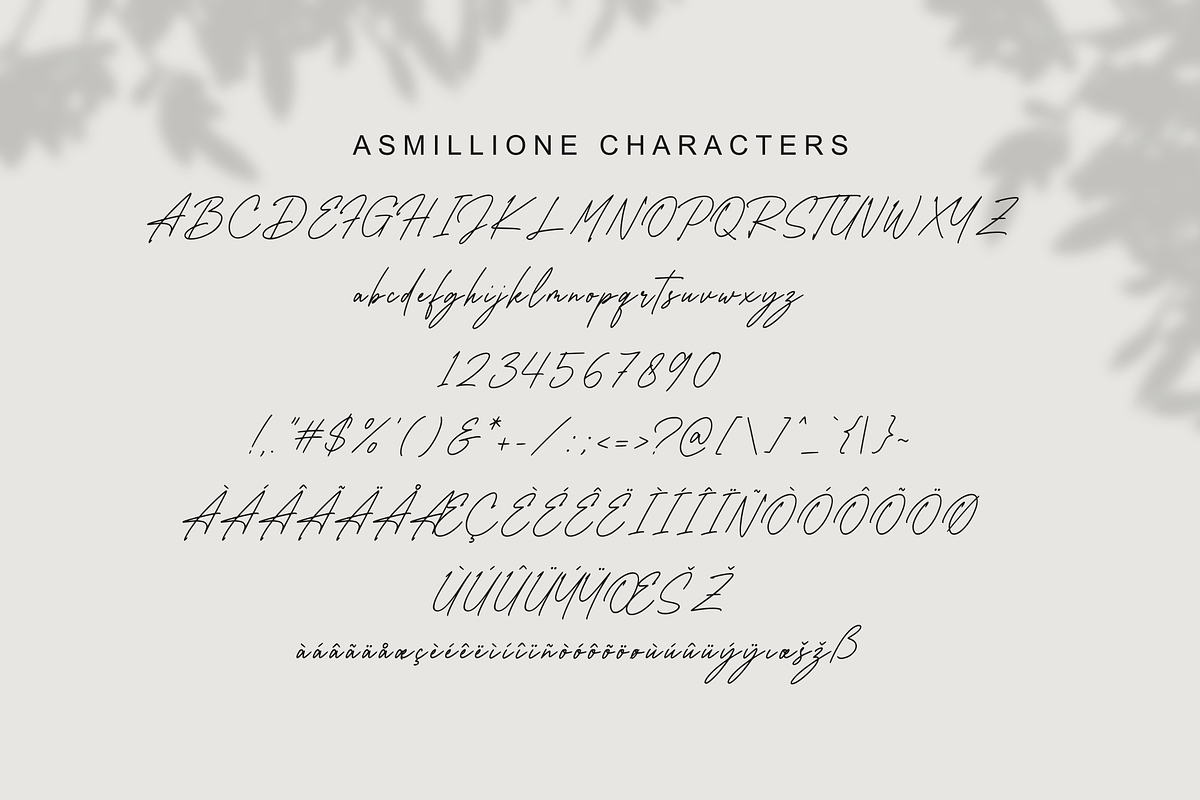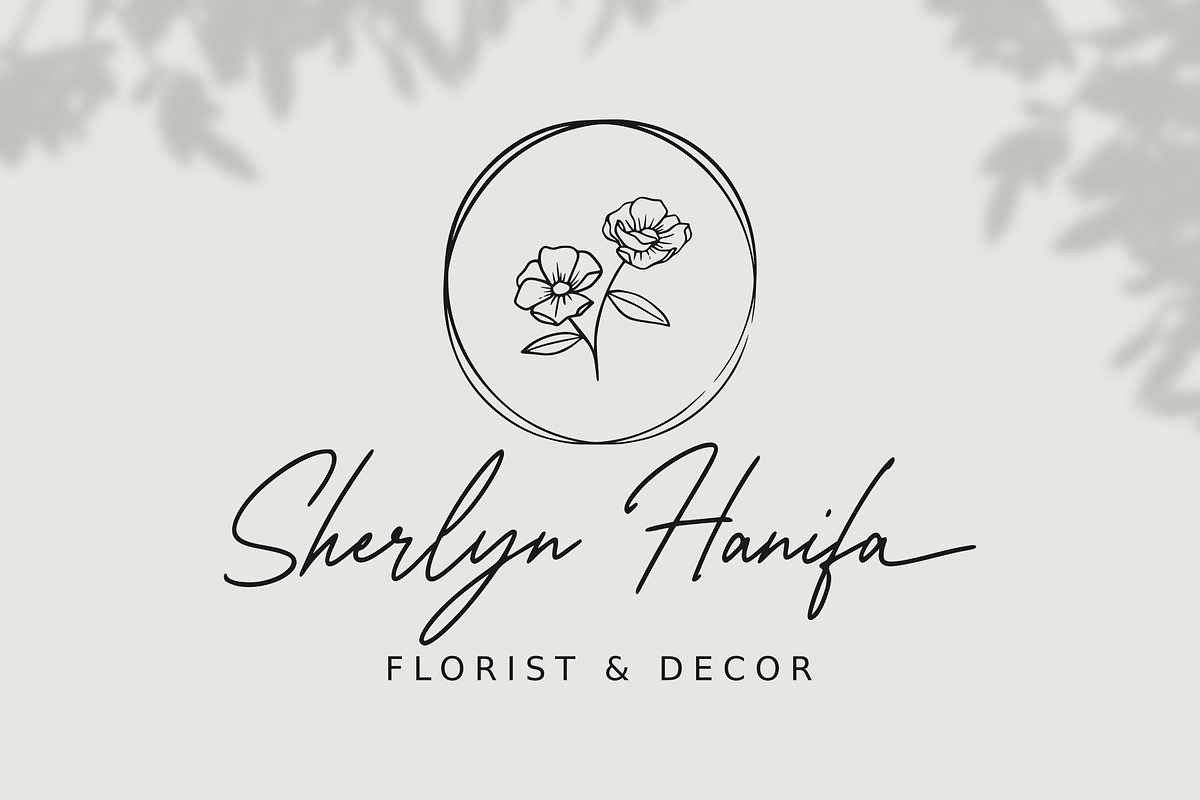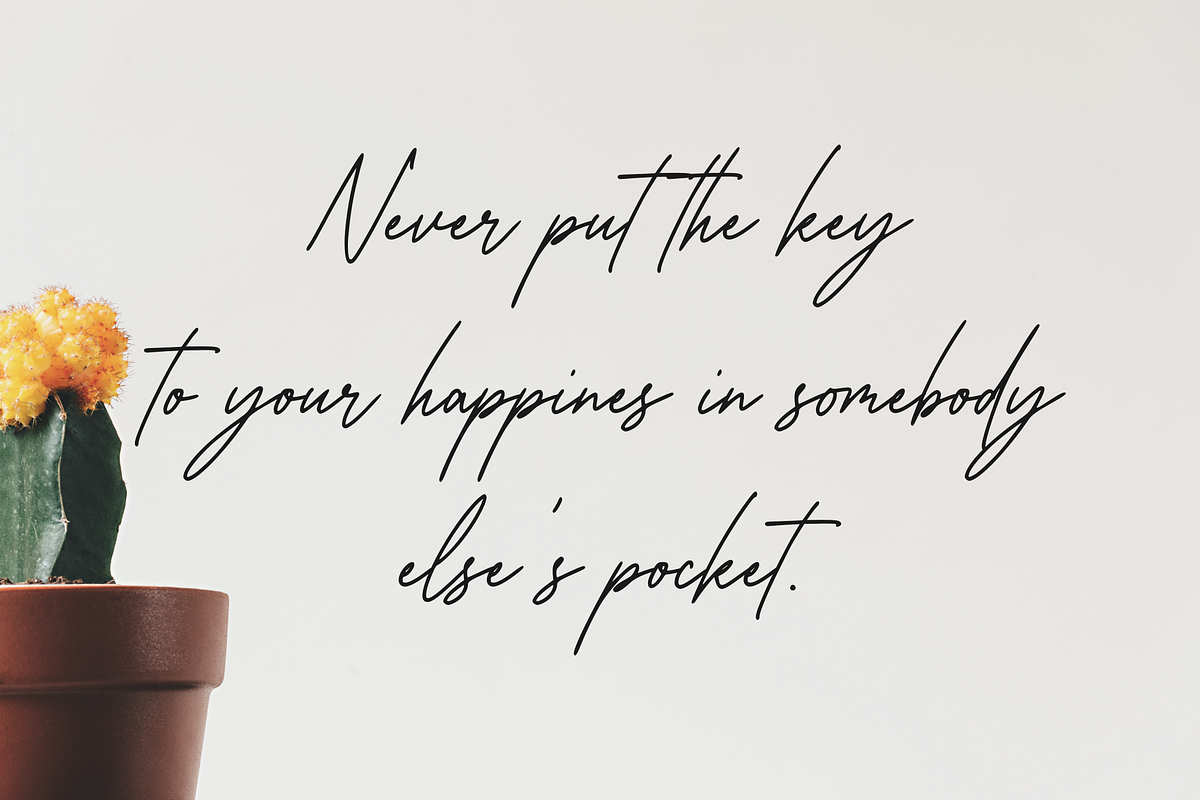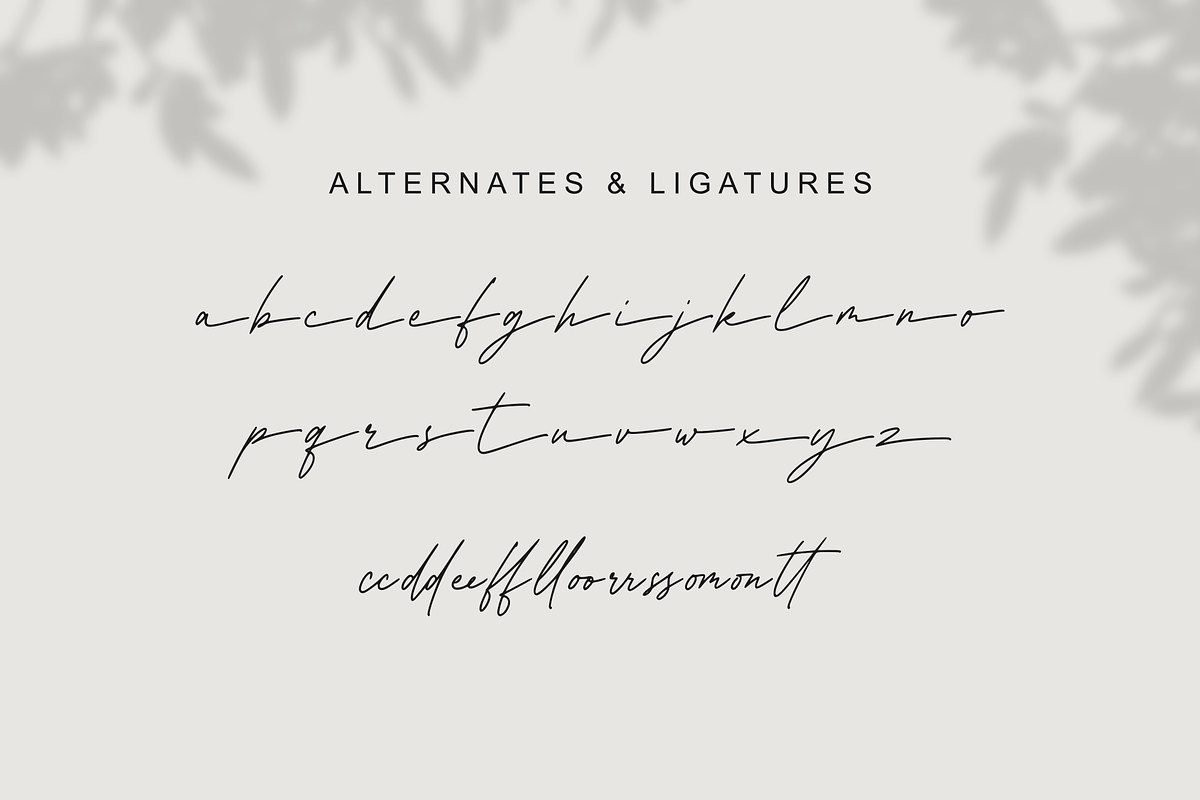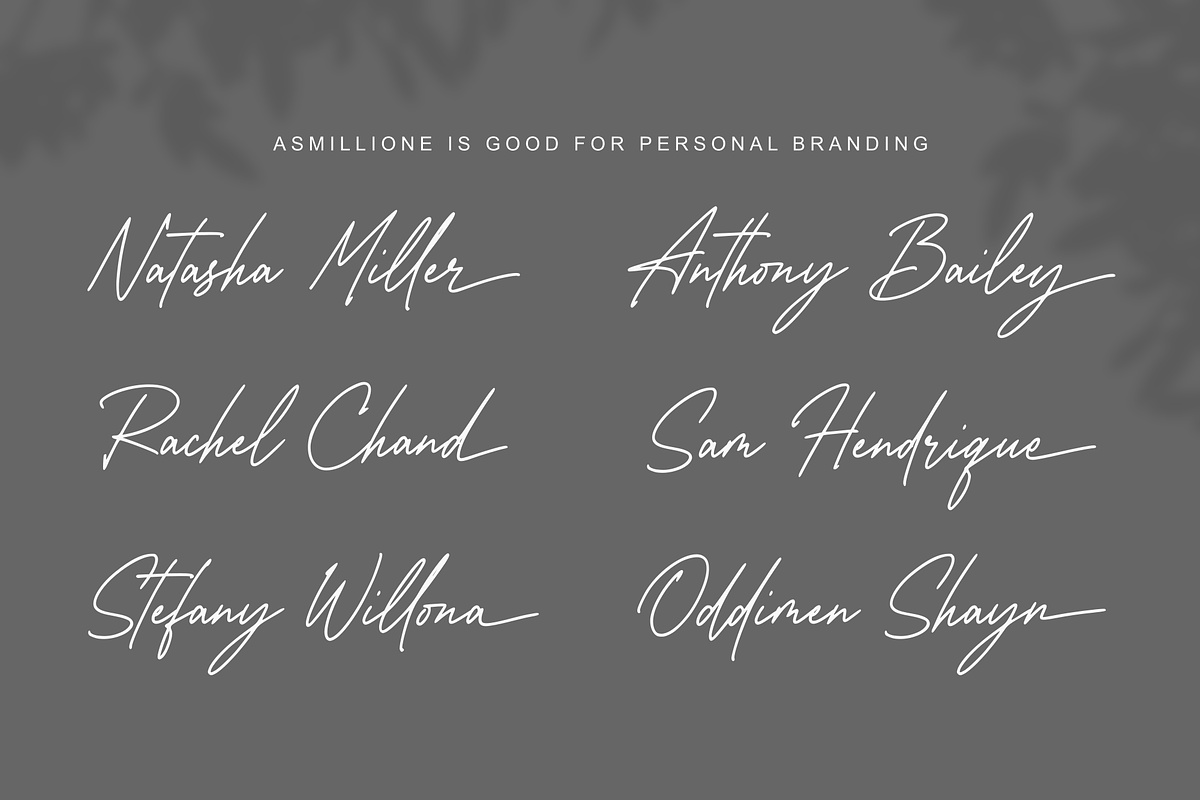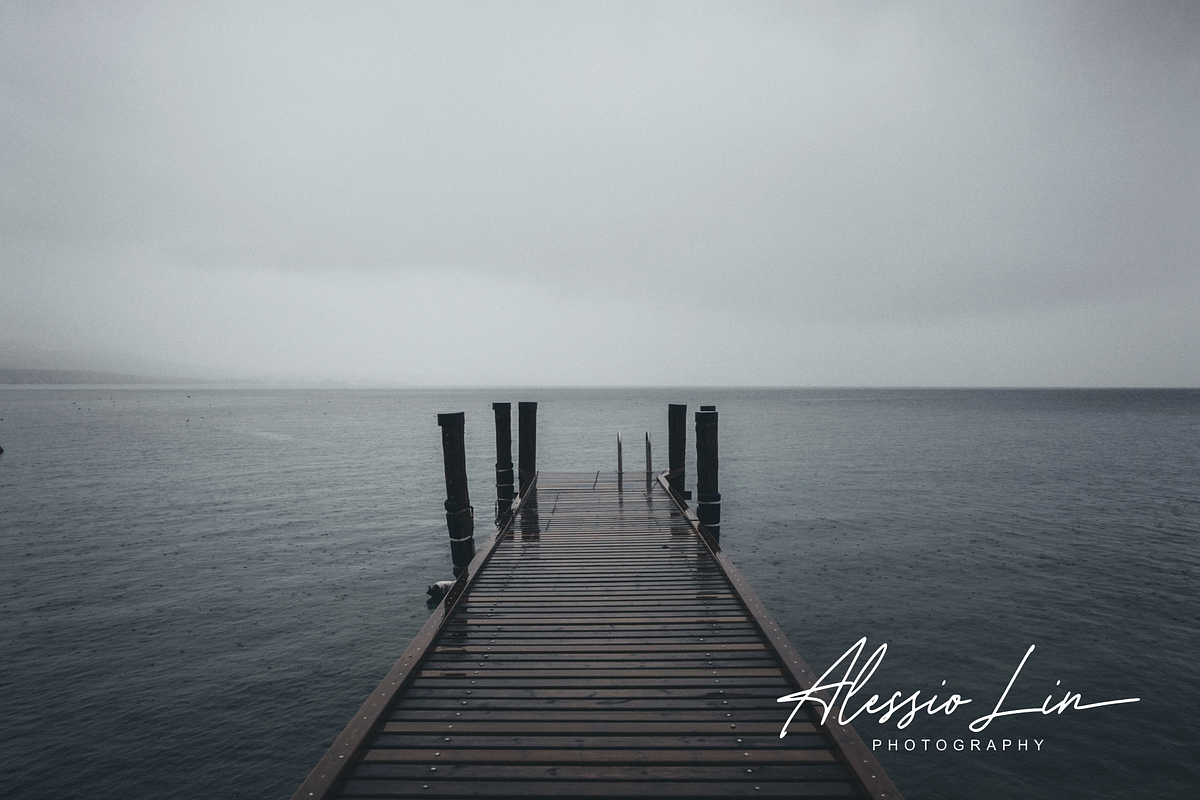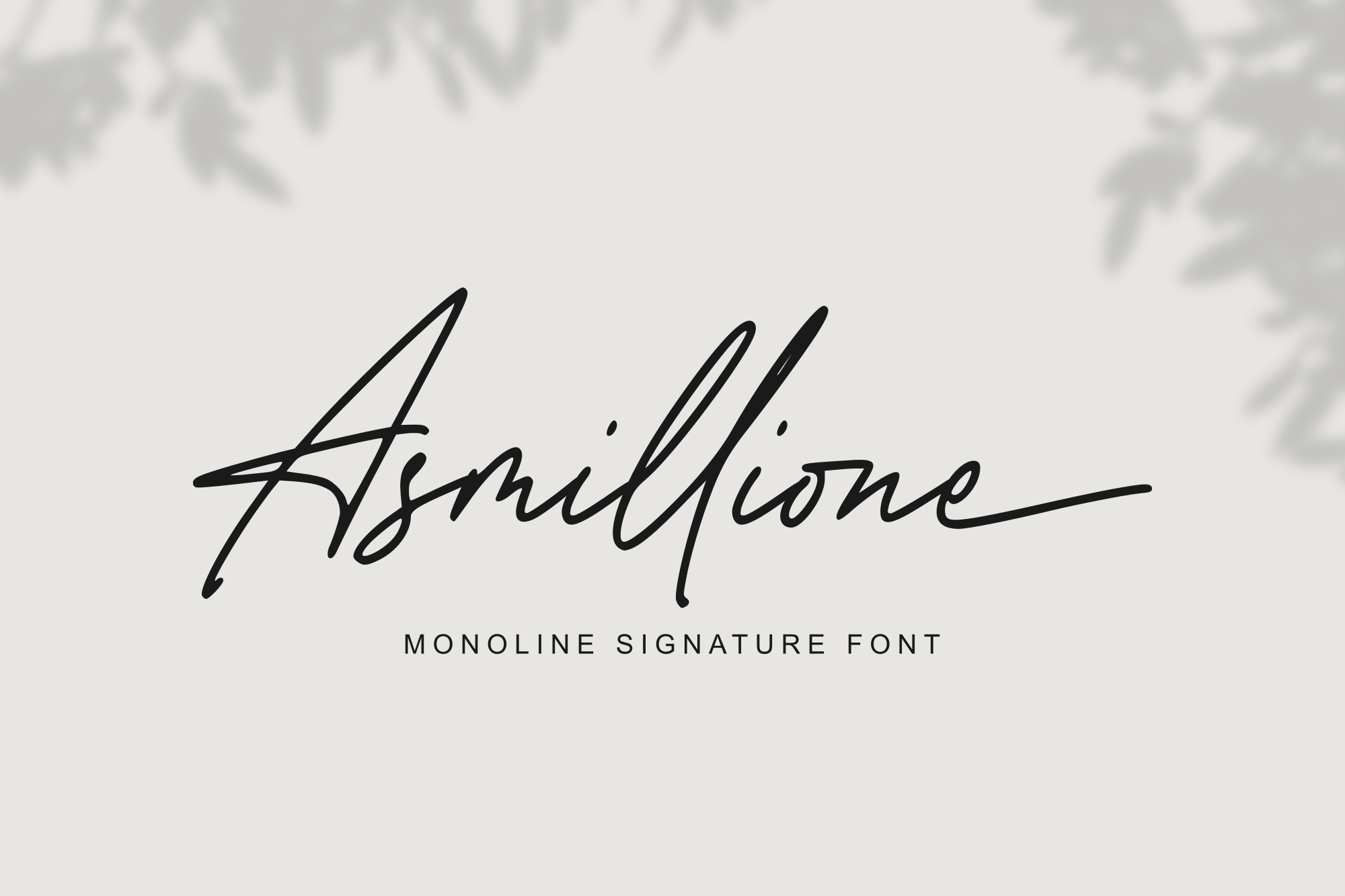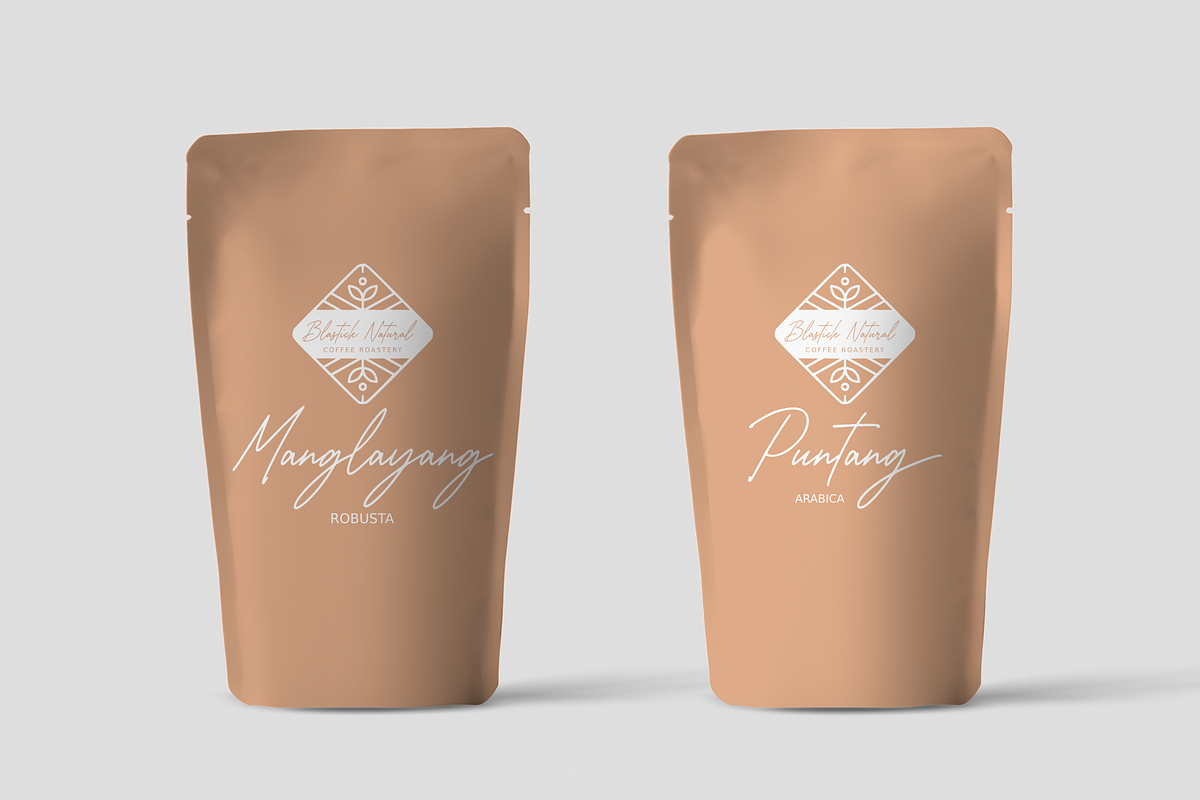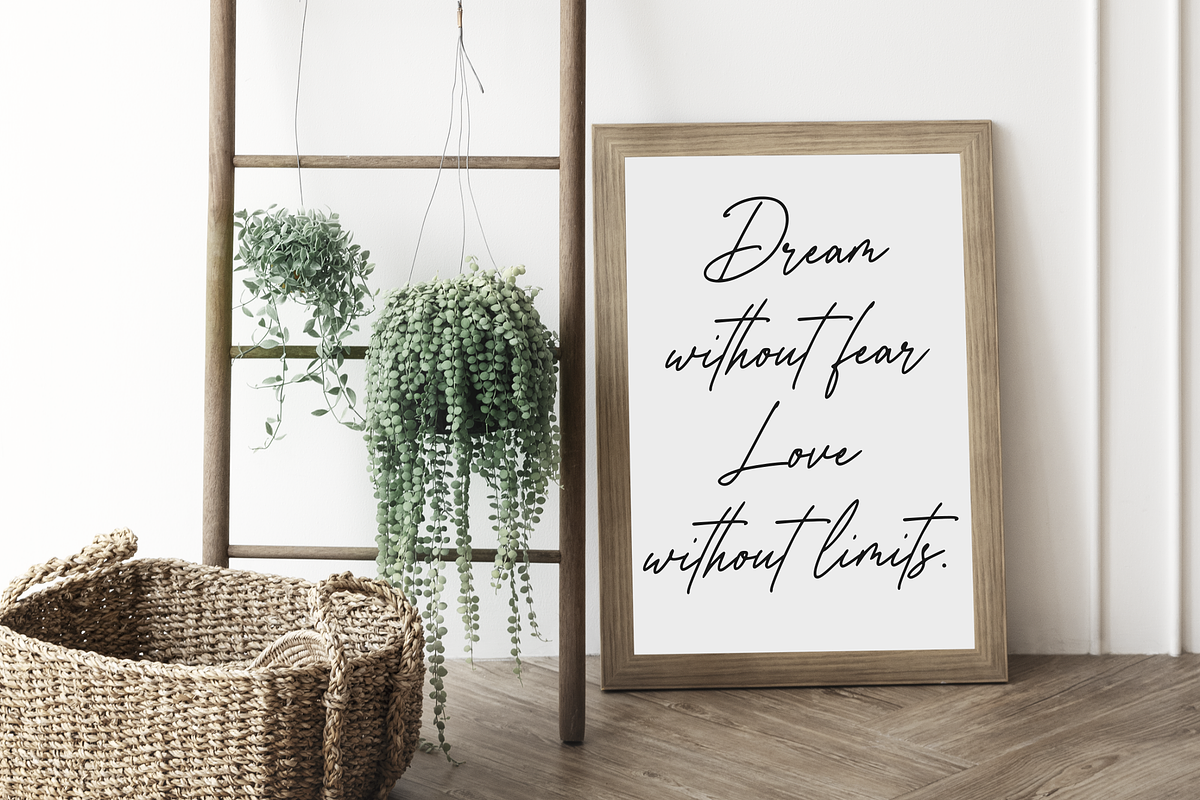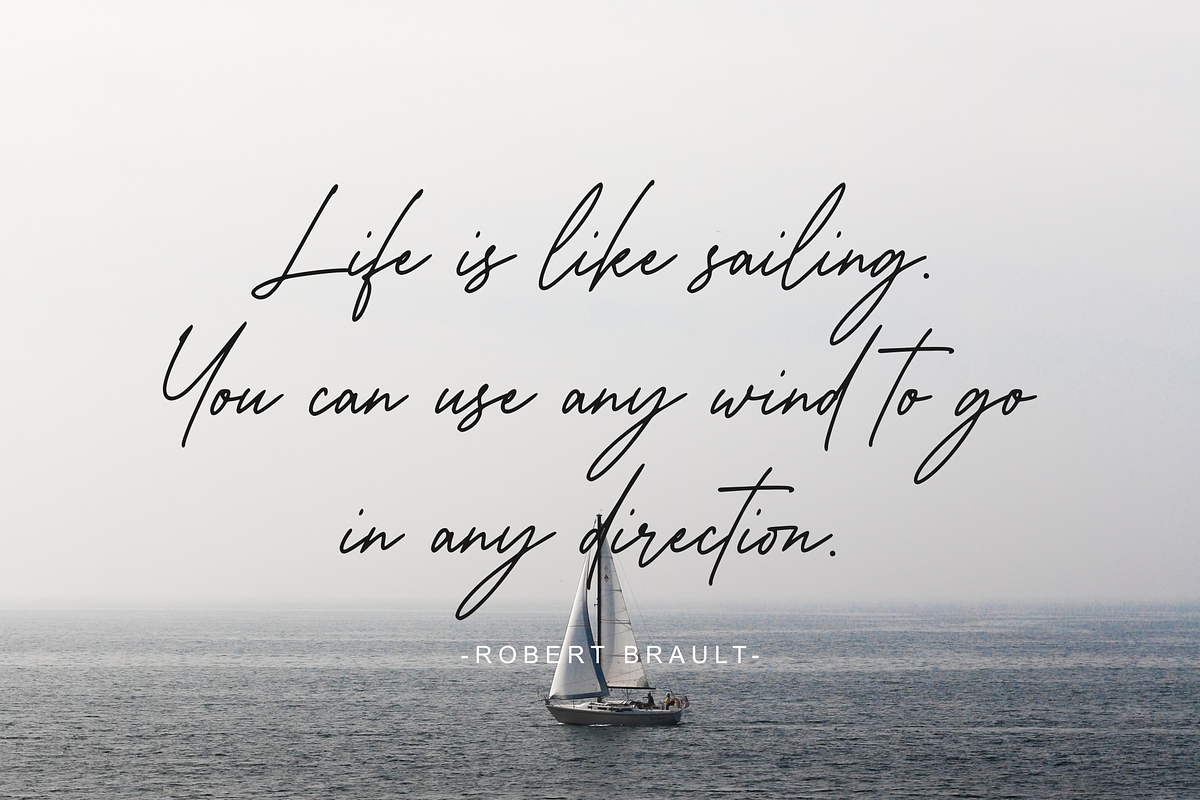
Asmillione - Monoline Signature Font
Asmillione is a monoline signature font with a natural handwriting feel. It includes ligatures and alternates to make your designs look more stylish and authentic. It works perfectly for logos, product packaging, wedding invitations, branding, headlines, signage, labels, signatures, book covers, posters, quotes, and more.